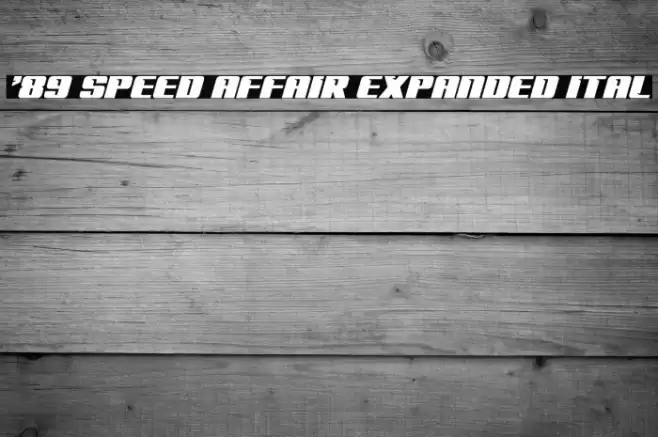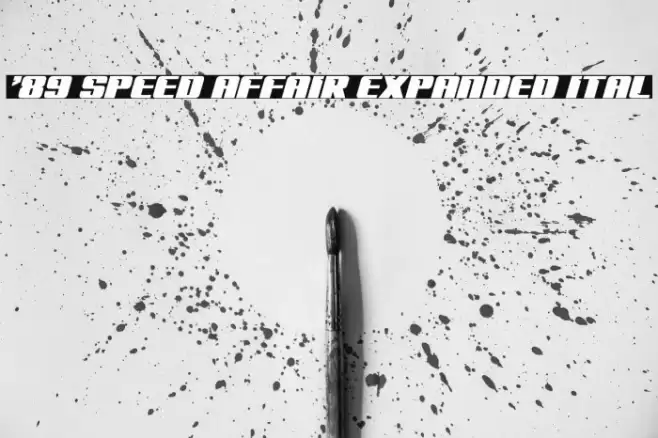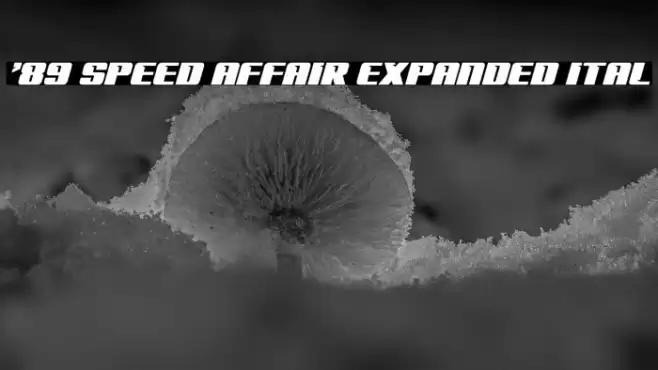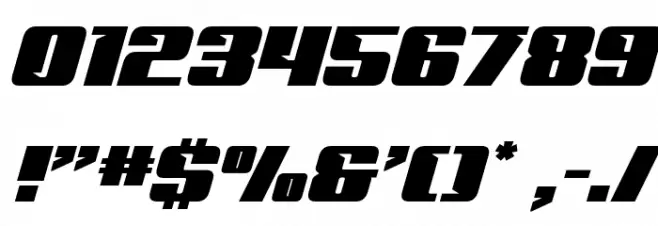
'89 Speed Affair Expanded Ital Font
'89 Speed Affair Expanded Ital Description
This font exudes a bold and dynamic presence, characterized by its thick, angular strokes and italicized slant. The expanded width gives it a commanding appearance, perfect for making a strong visual impact. Each character is designed with sharp edges and a futuristic style, making it ideal for projects that require a modern and edgy look. The high contrast between the thick and thin strokes enhances its readability while maintaining a stylish flair. Its unique design is suitable for creating eye-catching headlines, logos, and branding materials that demand attention.
A bold, italicized font with an expanded width and high contrast, perfect for modern and impactful designs from Regular fonts.
- Proposed Projects: Ideal for use in automotive branding, sports team logos, dynamic posters, and futuristic-themed designs.
- Width: Expanded